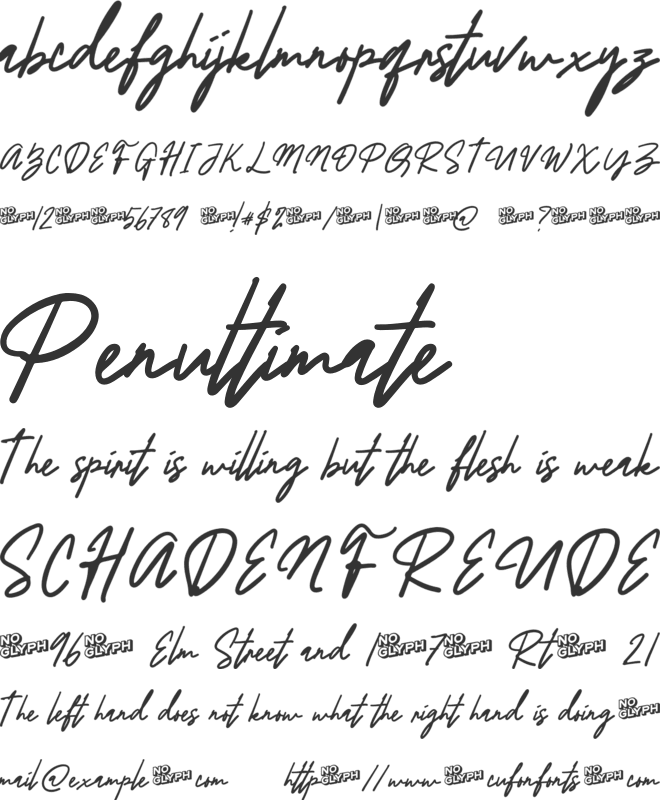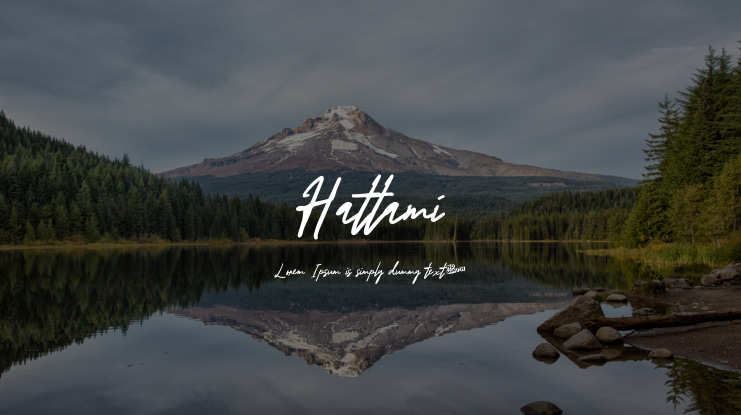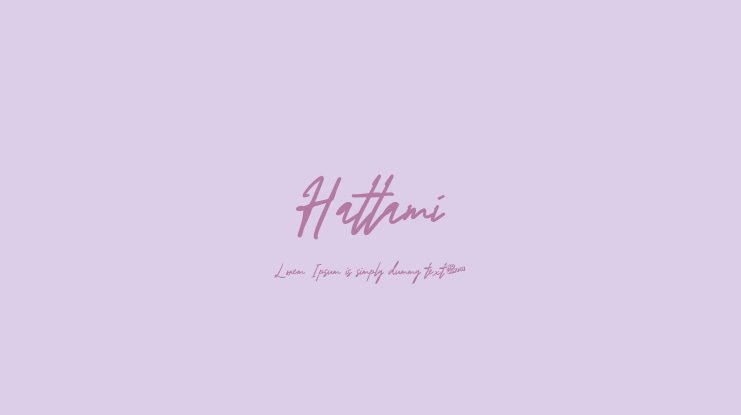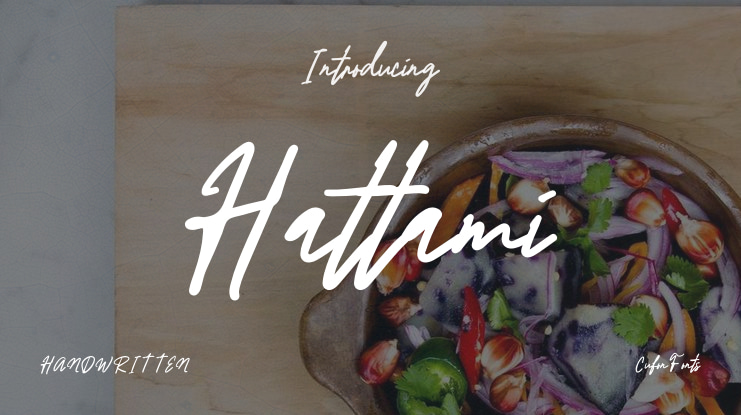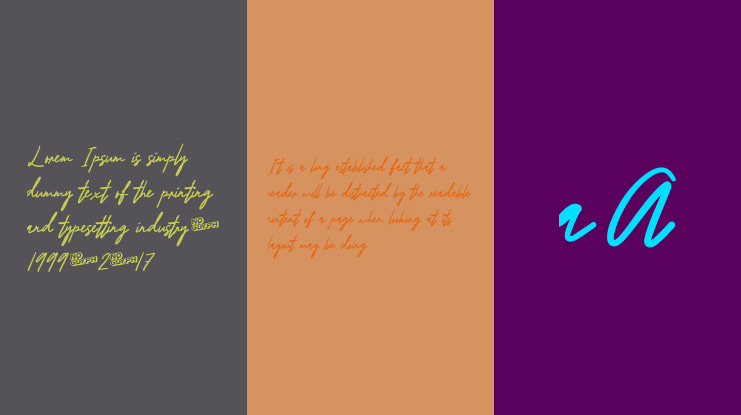
Hattami Font
Hattami is a charming and elegant script font that radiates sophistication and style. It was specifically designed for individuals seeking a stunning and rejuvenating aesthetic for their projects.